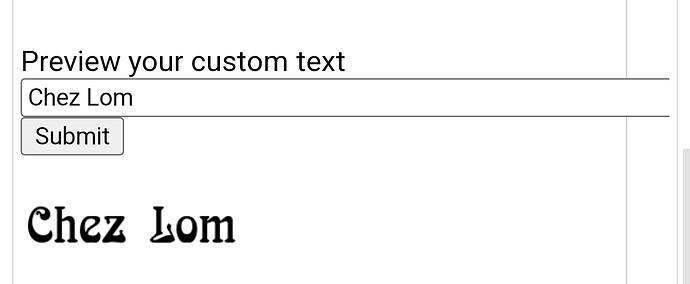
I’m not even sure it is a font, but I figured I’d check. And I’m hoping @RedKittieKat will work her magic. But if anyone might have an idea what font this is I would appreciate it.
It looks like Arnold Bocklin to me.
Aidan Thin or something like that rings a bell
Yep … that’s what it is ![]()
MyFonts has a few versions and there are a lot of knock offs. This one has be frogged around with. There is no bold version anywhere I can see. So, I’m going to assume they chunked it up with a good stroke and then added the additional black stroke ![]()
Even though Arnold Böcklin seems like a typeface that epitomizes the late 1960s and the whole San Francisco hippie thing, it’s an Art Nouveau typeface from (had to look up the date) 1904 that was named after a Swiss painter who died a few years earlier.
As already mentioned, there are dozens of variations of the typeface that people have made over the years, such as Aidan Thin. Most are poorly built free fonts. I think the official version is owned by Linotype or, more accurately, Monotype.
Arnold Böcklin, like Hobo, are typefaces that make me cringe unless I view them in their original contexts of coming from the Art Nouveau period, where they fit right in.